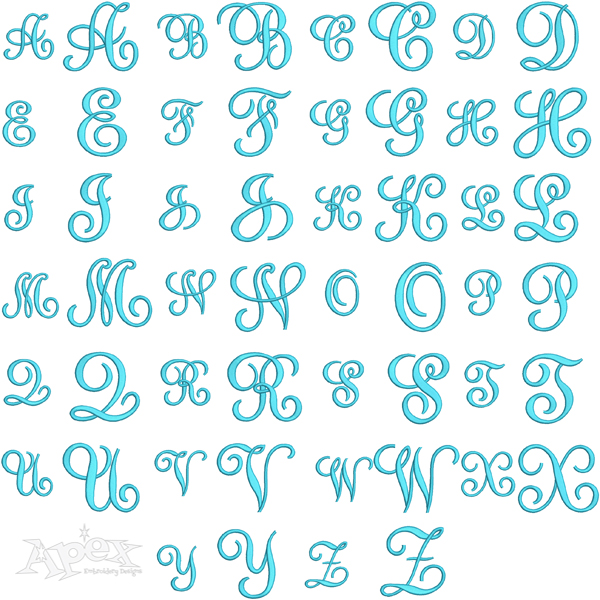
Sydney Embroidery Font
Sydney Embroidery Fonts Design. Two size sets, 4 sizes total. This is a great font sews out very nice. Size: 1" with .75" for left and right. Great for small projects and ribbons / bows. Size: 3" with 2" for left and right. Letters stitch and sew out great on all embroidery sewing machines.